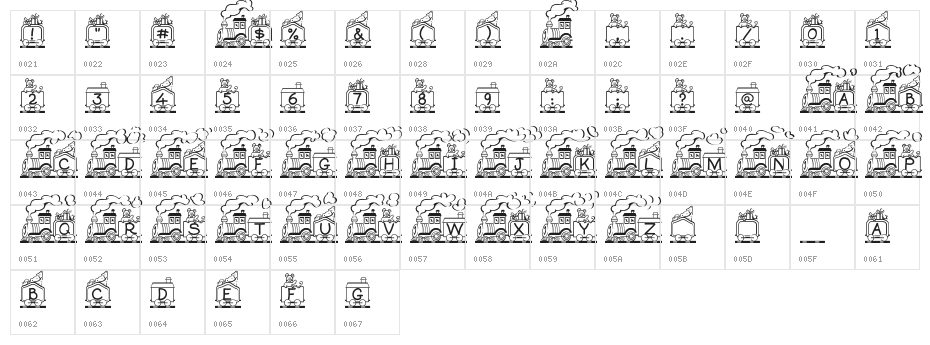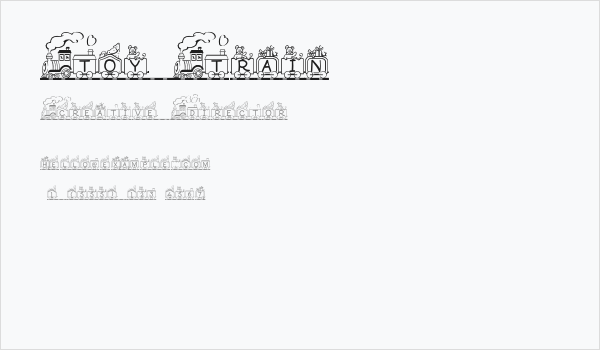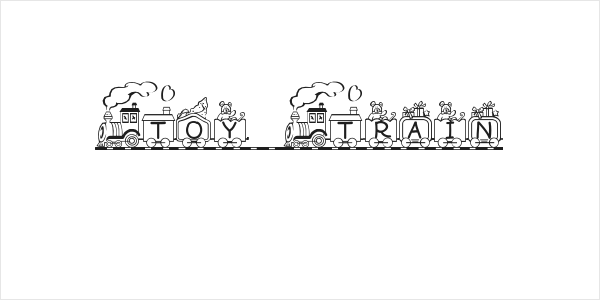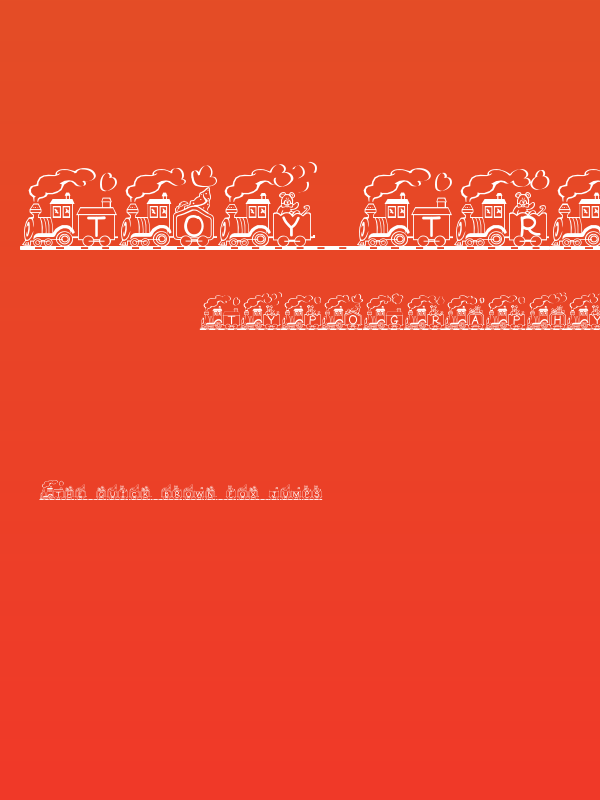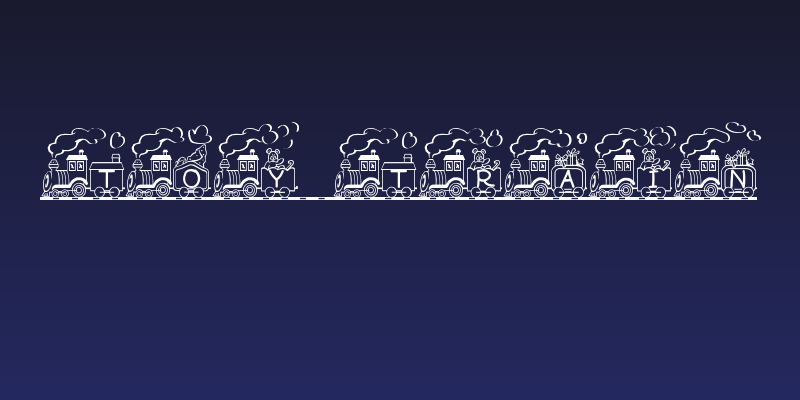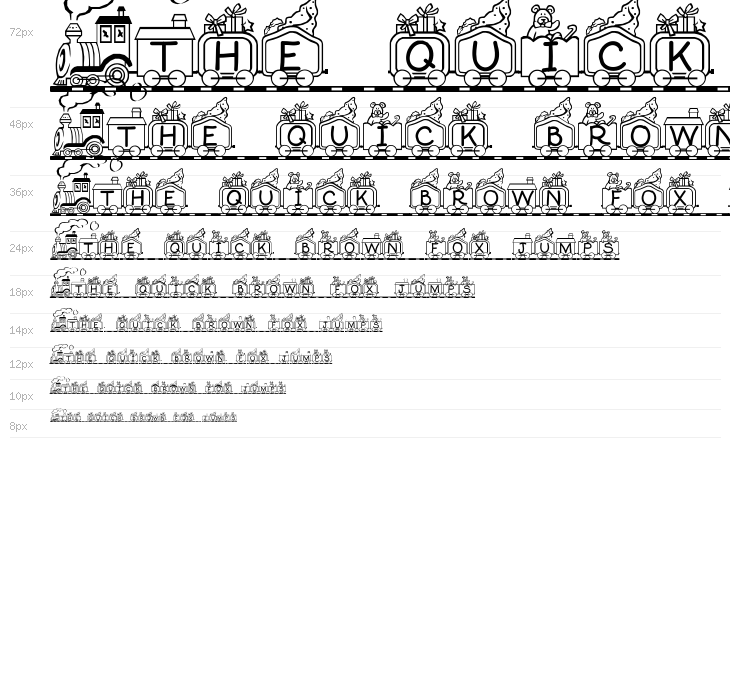
Toy Train Font
Toy Train Description
This playful and whimsical font features letters and numbers designed as part of a toy train. Each character is housed within a train car, complete with wheels and decorative elements like gifts, animals, and smoke from the engine. The design is intricate, with each letter and number integrated into the train theme, making it ideal for children's projects or playful designs. The characters are bold and easily readable, despite the decorative elements surrounding them. This font brings a sense of fun and creativity, perfect for capturing the imagination.
| Use Case | Headlines, Logos, Children's materials |
| Proposed Projects | Ideal for children's books, toy packaging, playful invitations, and educational materials. |